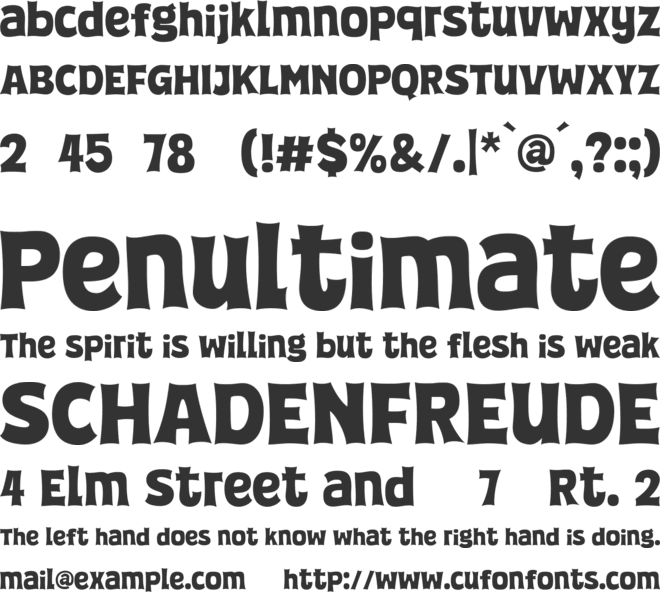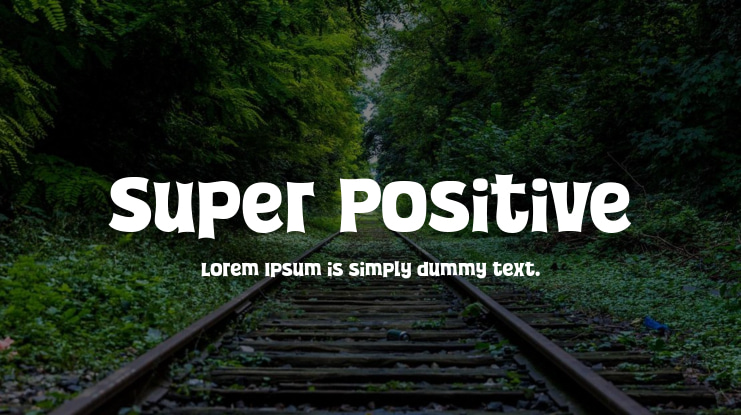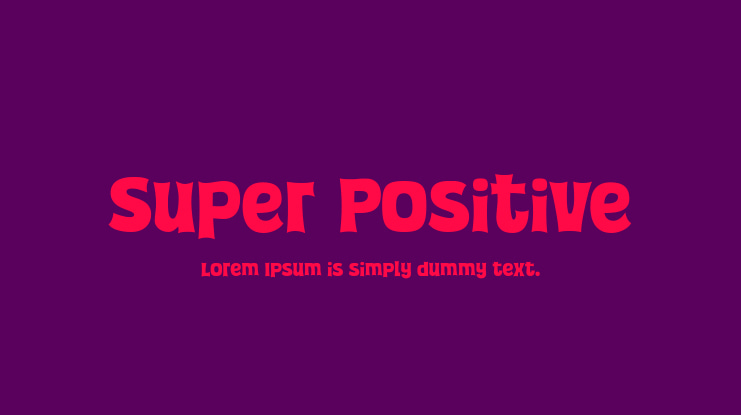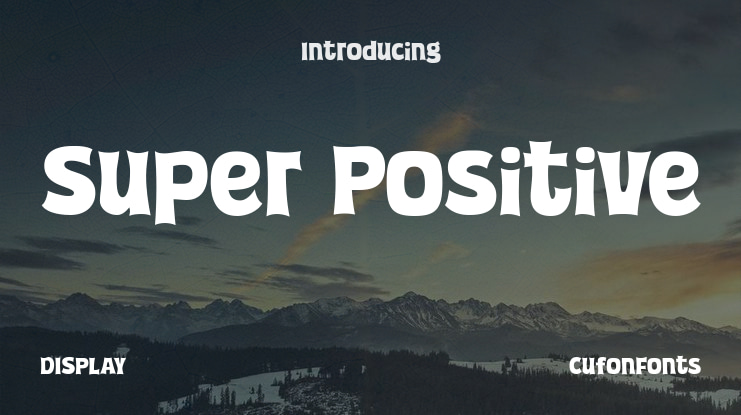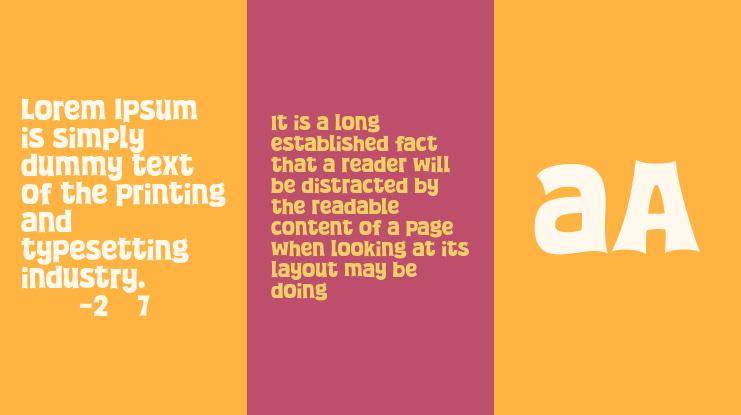
Super Positive Font
This font is intended for personal use only. To use it for commercial purposes, you must acquire a commercial license. Purchase a commercial license for the font "Super Positive" at the following link: [Super Positive - AllSuperFont](https://allsuperfont.com/product/super-positive). Super Positive is a bold and lively headline font created to bring infectious optimism to your projects. Its cheerful character ensures that your message will capture attention and leave a memorable impact.
Super Positive font preview